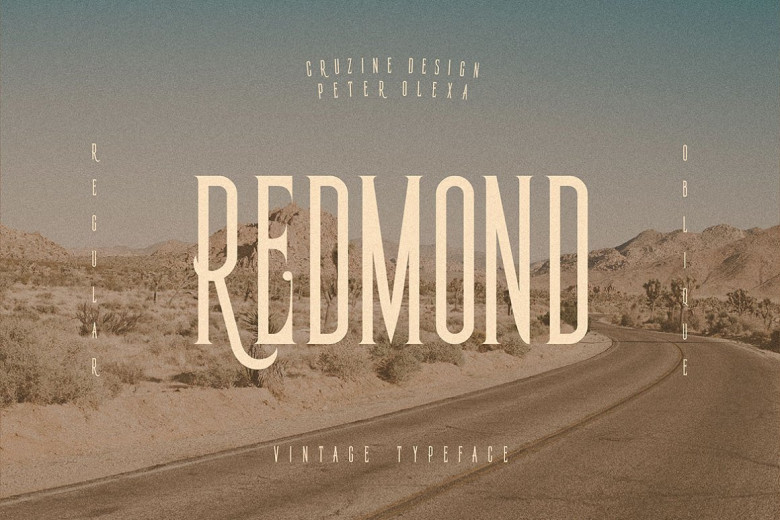
Redmond Font
Redmond is a good font. This is a condensed, vintage and decorative serif style. Comes with multilingual support & ligatures – perfect for the new logo or brand you’ve been dreaming up!
Redmond Vintage & Serif Condensed Font